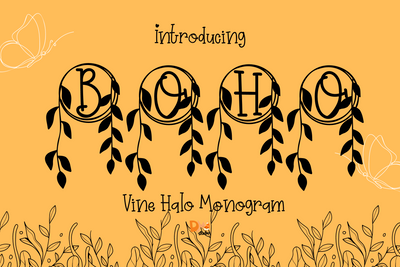
Vine Halo Monogram
Vine Halo Monogram – Elegant Serif Monogram Font with Botanical Circular Accents
Vine Halo Monogram is a graceful serif monogram font featuring uppercase letters encircled by delicate vine wreaths. Inspired by botanical elegance and minimalist balance, this monogram font is perfect for creating luxurious, nature-themed initials for weddings, branding, crafts, and sophisticated personalized designs.
Botanical Halo Design: Each letter is beautifully framed with a hand-drawn vine wreath.
Elegant Serif Core: Clean and timeless serif characters create a polished monogram look.
Circular Composition: Balanced, centered layout ideal for logos, stamps, and stationery.